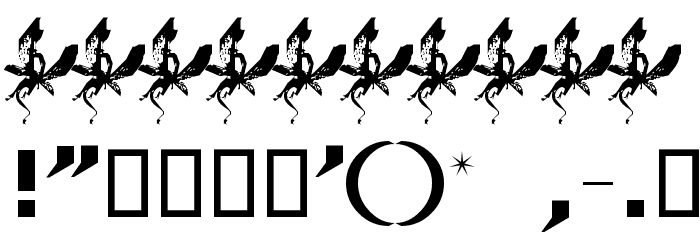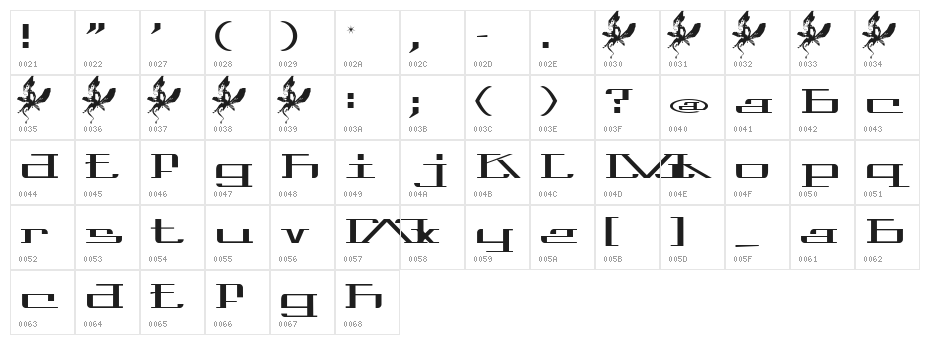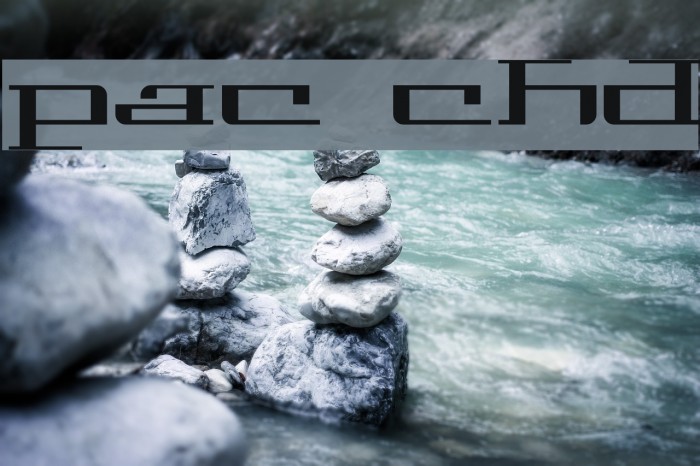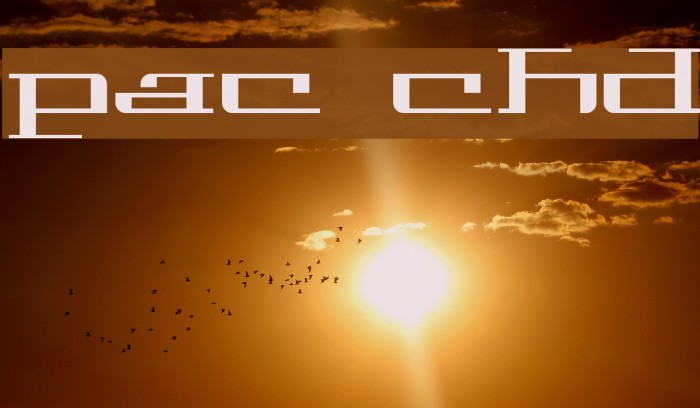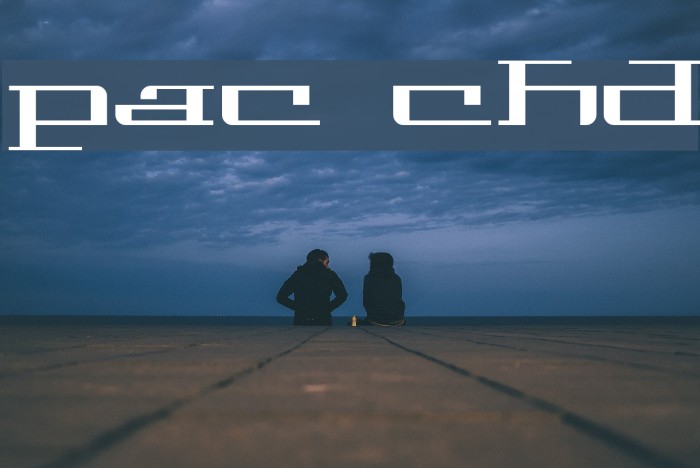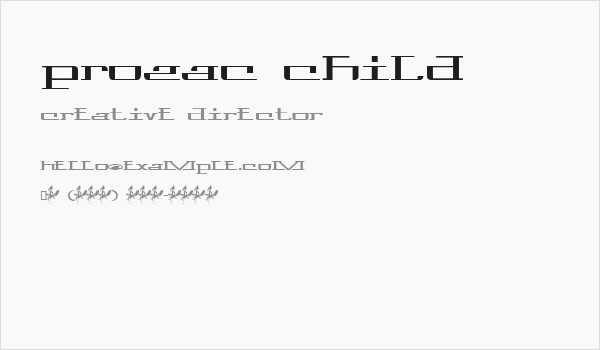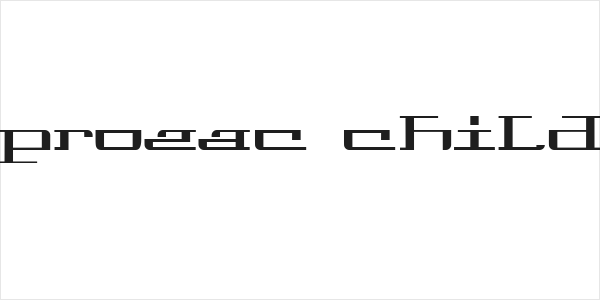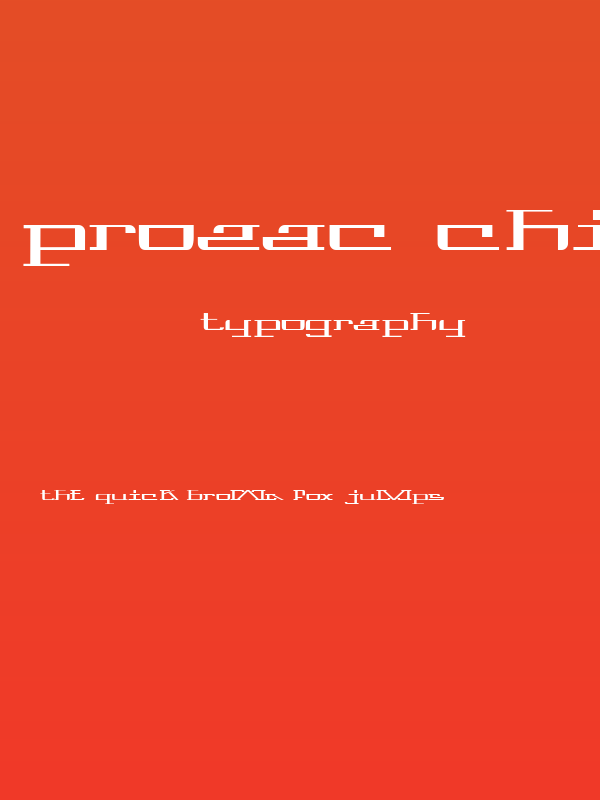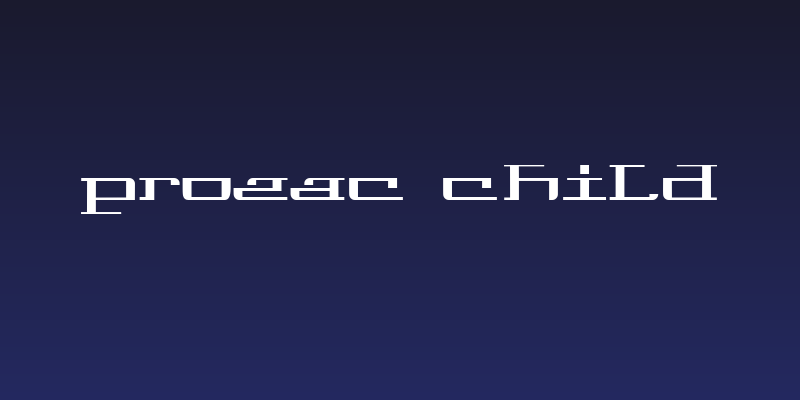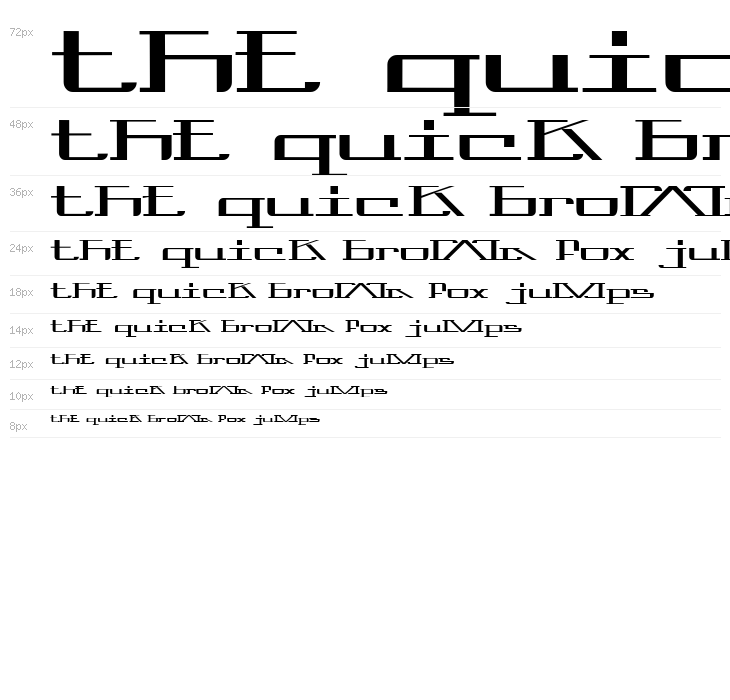
Prozac Child Font
Prozac Child Description
This font features a unique and edgy design with a futuristic and slightly gothic aesthetic. The characters are constructed with sharp angles and geometric shapes, giving it a distinct and unconventional appearance. The uppercase and lowercase letters maintain a consistent style, with some characters incorporating unexpected twists and turns. The font includes a set of special characters that complement its bold and striking look. It is highly decorative, making it suitable for projects that require a standout and artistic typeface.
| Overall Style | Futuristic, Gothic |
| Use Case | Logos, Posters, Album Covers |
| Proposed Projects | Ideal for music album covers, sci-fi themed posters, video game graphics, and edgy branding projects. |